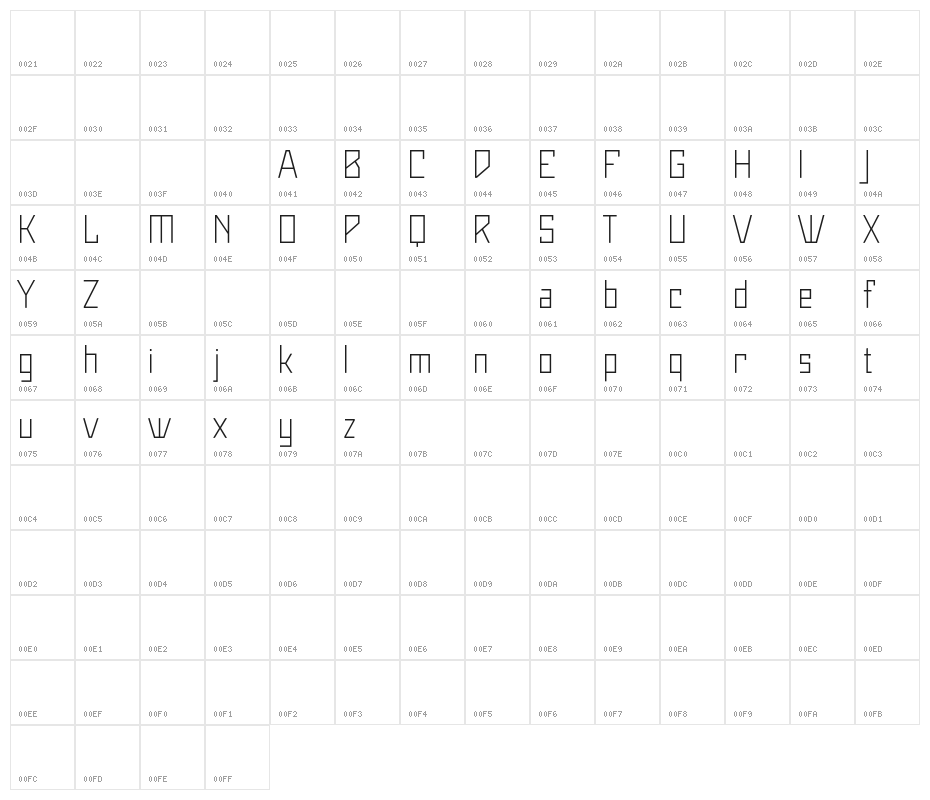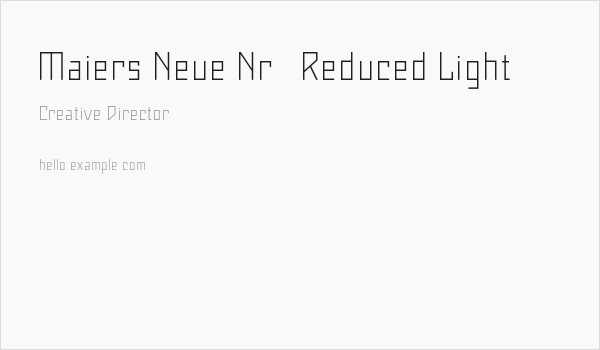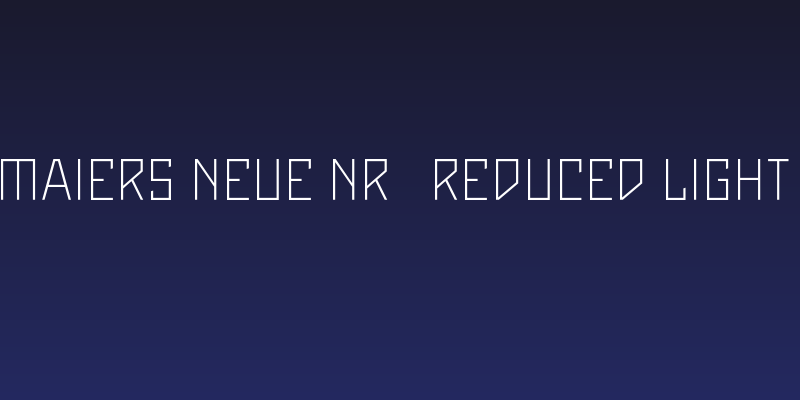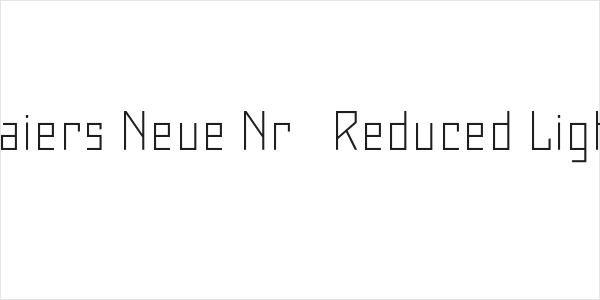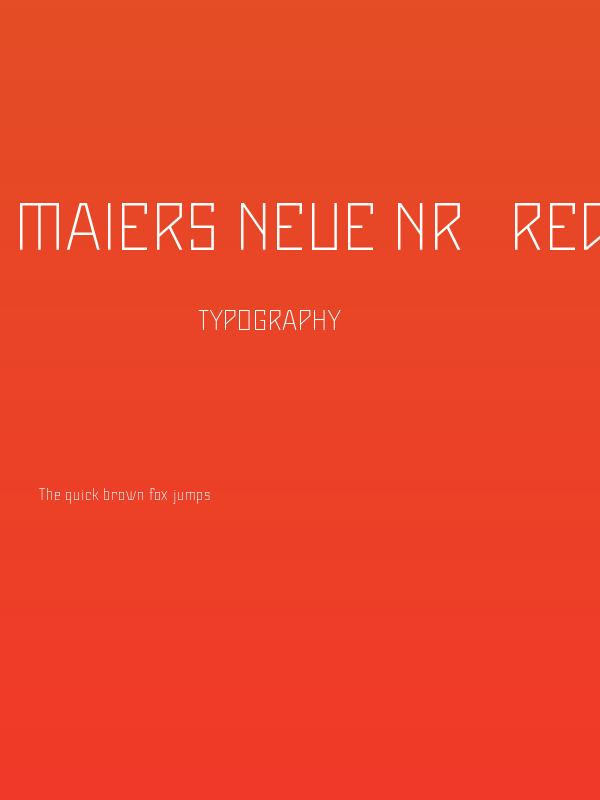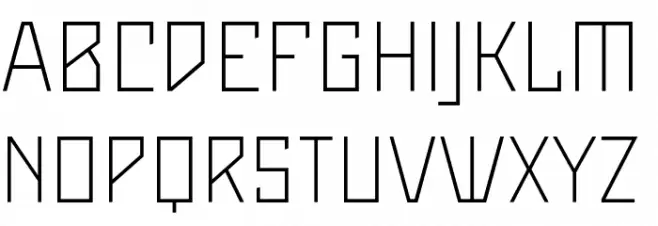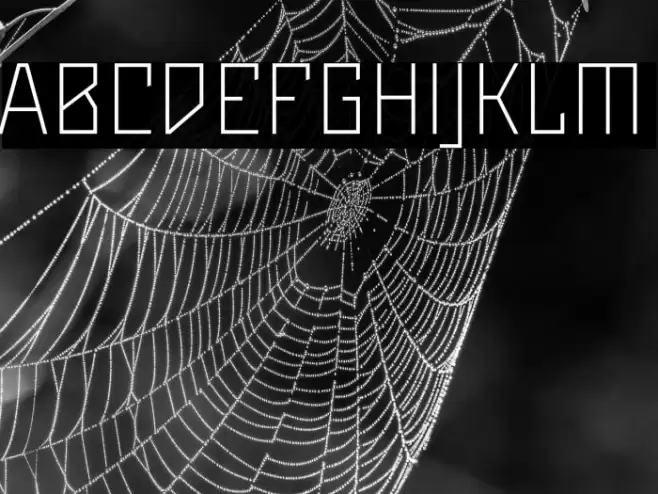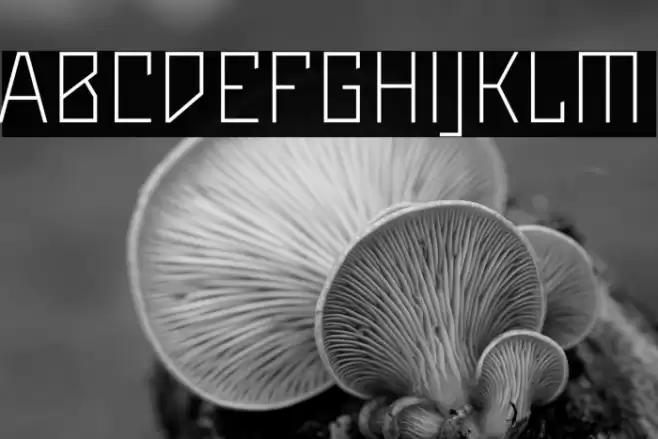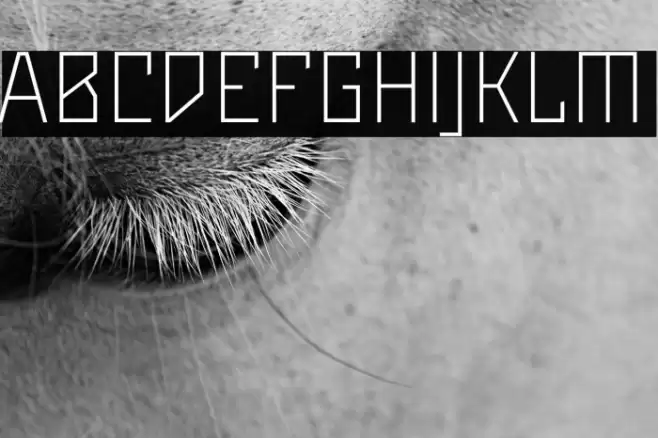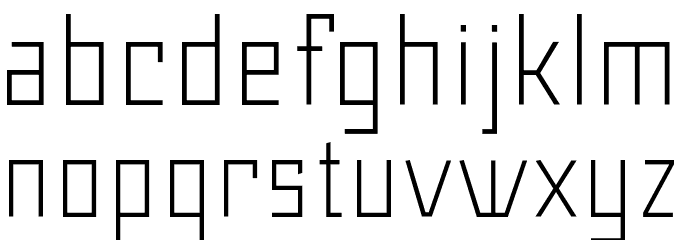
Maiers Neue Nr.8 Reduced Light Font
Maiers Neue Nr.8 Reduced Light Description
This font features a geometric and minimalist design, characterized by its clean lines and angular shapes. The uppercase letters exhibit a uniform height with sharp corners, while the lowercase letters maintain a consistent style with slightly rounded edges. The overall appearance is modern and technical, with a focus on precision and clarity. The numerals and special characters follow the same design principles, ensuring a cohesive look across all elements. This font is well-suited for projects that require a contemporary and structured aesthetic.
| Use Case | Headlines, Logos, Digital interfaces |
| Proposed Projects | Ideal for tech branding, modern posters, architectural designs, and digital interfaces. |